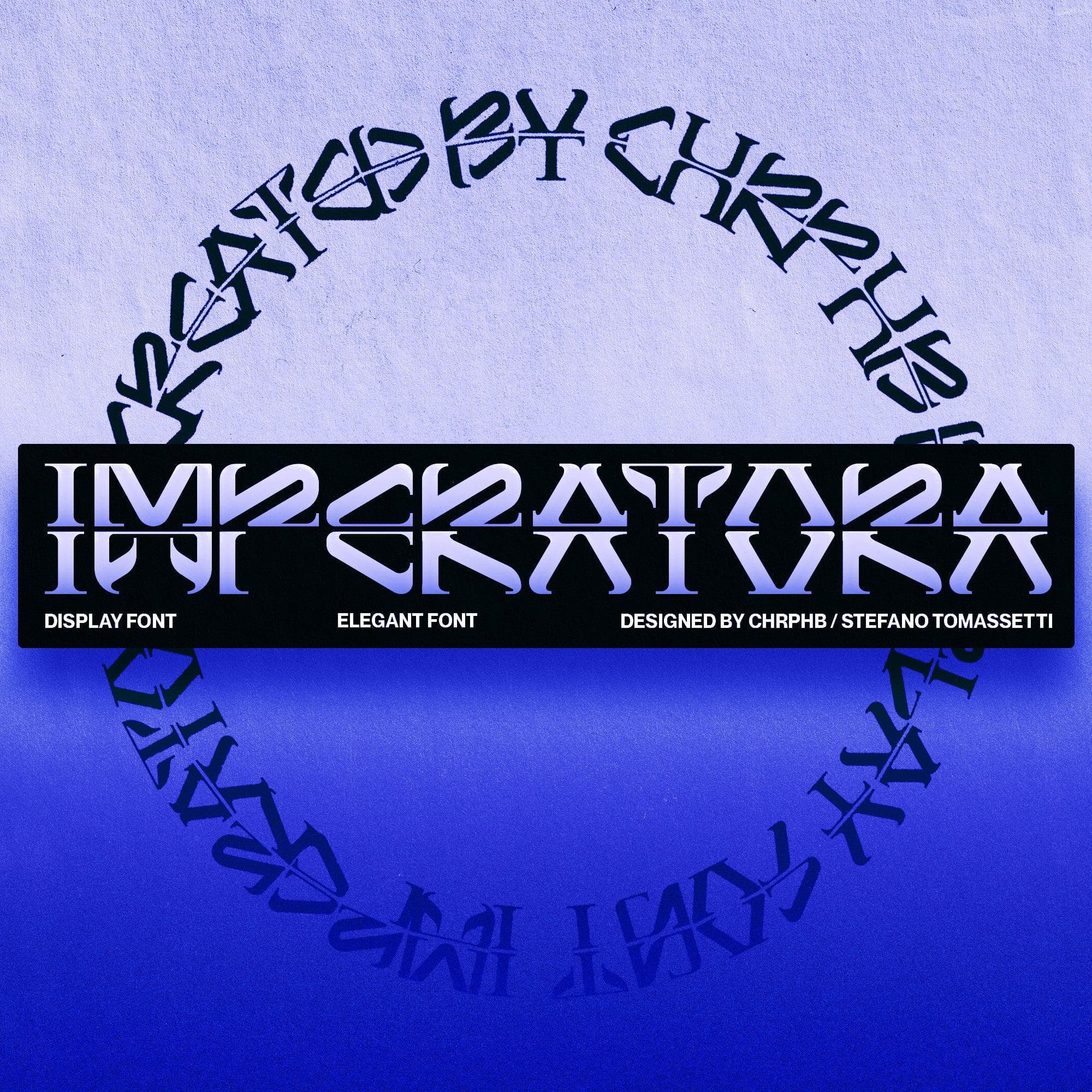
<p>With its unique blend of elegance, secrecy, luxury, and mystery, this typeface creates a singular aesthetic that effortlessly captures attention. Ideal for those in search of an otherworldly yet stylish appearance, Imperatora is an excellent option for logotypes, intriguing posters, and evocative album covers.<br>- Supplied in .otf format</p>